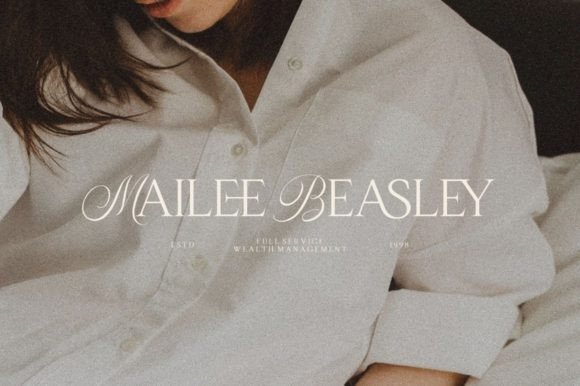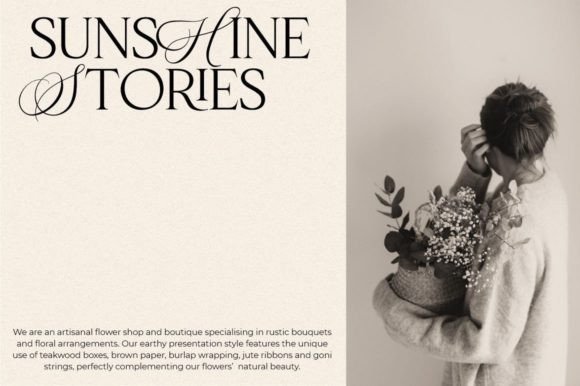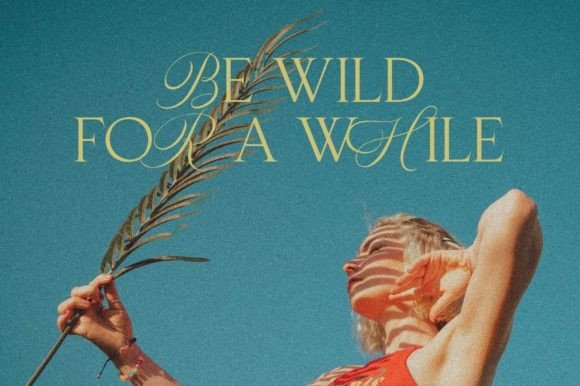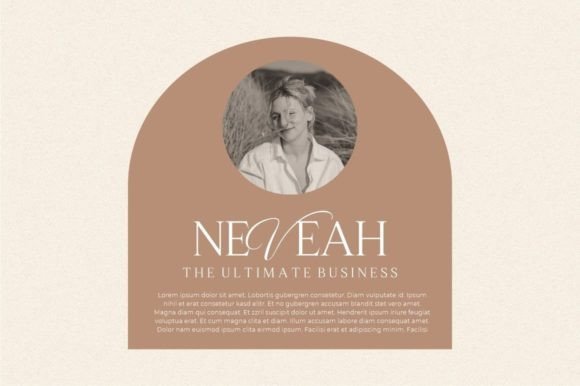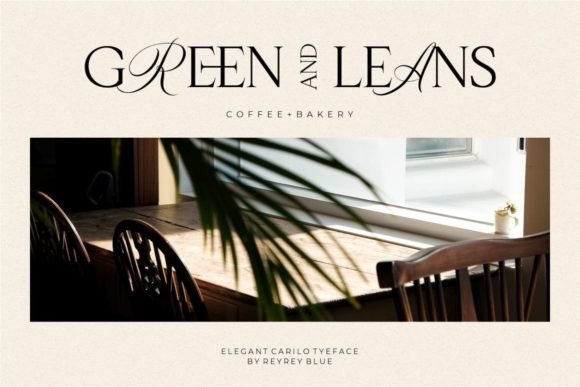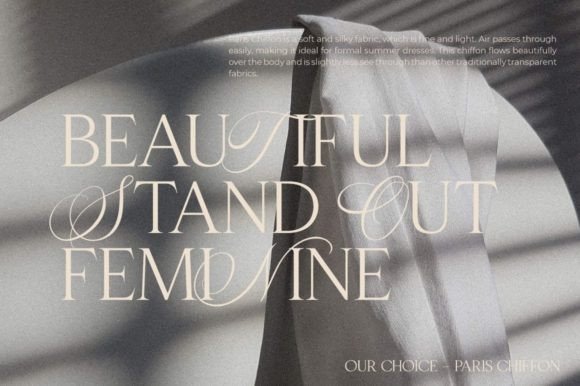
Introducing Carilo Font: Elevate Your Designs with Elegance and Luxury
Are you on the hunt for a font that exudes sophistication, elegance, and luxury? Look no further than Carilo Font, a stunning serif font that is sure to capture your heart. With its incredibly versatile style, Carilo is perfect for creating a wide range of designs, from gorgeous wedding invitations and beautiful stationery art to eye-catching social media posts and more.
What Makes Carilo Font So Special?
Carilo Font is a masterclass in typographic design, boasting a unique blend of classic and modern elements that set it apart from other serif fonts. Its elegant lines, refined curves, and subtle nuances make it an exceptional choice for designers and crafters looking to add a touch of luxury to their work.
Key Features of Carilo Font
- Elegant and Luxurious Design: Carilo Font features a sophisticated serif design that is perfect for creating high-end designs that demand attention.
- Incredibly Versatile: Whether you’re designing wedding invitations, business cards, or social media posts, Carilo Font adapts seamlessly to any style or format.
- Wide Range of Applications: Use Carilo Font to create beautiful stationery art, elegant headings, and eye-catching titles that elevate your designs.
- Easy to Read: Despite its elegant design, Carilo Font remains highly legible, making it perfect for body text and longer-form content.
Use Cases for Carilo Font
Carilo Font is an incredibly versatile font that can be used in a wide range of design applications. Here are just a few ideas to get you started:
- Wedding Invitations: Create stunning wedding invitations that set the tone for a luxurious and unforgettable celebration.
- Stationery Art: Design beautiful stationery art, including letterheads, notecards, and journals, that showcase your brand’s personality.
- Social Media Posts: Elevate your social media presence with eye-catching posts that feature Carilo Font’s elegant design.
- Branding and Packaging: Use Carilo Font to create luxurious branding and packaging that stands out on store shelves.
Tips for Using Carilo Font Effectively
To get the most out of Carilo Font, here are a few tips to keep in mind:
- Pair with Other Fonts: Experiment with pairing Carilo Font with other fonts to create a unique and visually appealing typography scheme.
- Adjust Font Sizes: Play with font sizes to create visual hierarchy and emphasize key elements in your design.
- Use Font Styles: Take advantage of Carilo Font’s various font styles, including italic and bold, to add emphasis and create visual interest.
| Font Name | Carilo Font |
| Author | Reyrey Blue |
In conclusion, Carilo Font is an exceptional serif font that offers a unique blend of elegance, luxury, and versatility. Whether you’re a designer, crafter, or DIY enthusiast, Carilo Font is sure to become a go-to choice for creating stunning designs that demand attention. So why wait? Fall in love with Carilo Font today and elevate your designs to new heights!